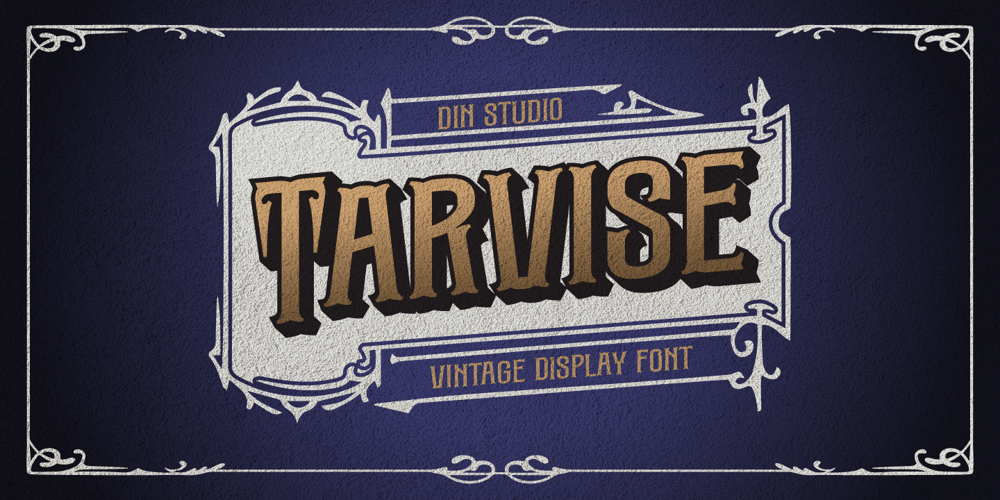
Tarvise Font Family was designed by Donis Miftahudin and published by Din Studio. Tarvise contains 2 styles and family package options. Introducing Tarvise, a bold and timeless display font with a vintage aesthetic that commands attention. Crafted in uppercases with a solid, bold weight, Tarvise boasts clean and consistent letterforms that deliver a powerful presence. Its sturdy shapes are perfect for designs that need a bold yet polished look. Plus, with an available extrude version, Tarvise adds depth and dimension to your projects. This font gives ornament sets as extra. In addition, enjoy the features here.Features: Alternates Ligatures Multilingual Supports PUA Encoded Numerals and Punctuations Tarvise fits in headlines, logos, posters, branding materials, packaging, print media, editorial layouts, and many more designs. Find out more ways to use this font by taking a look at the font preview.Thanks for purchasing our fonts. Hopefully, you have a great time using our font. Feel free to contact us anytime for further information or when you have trouble with the font. Thanks a lot and happy designing.